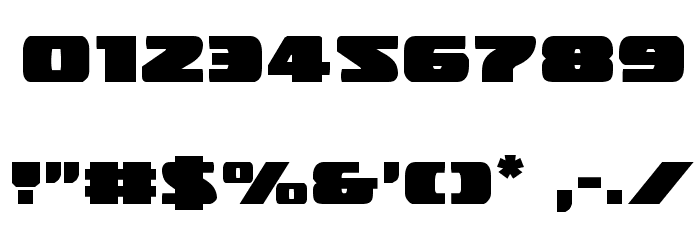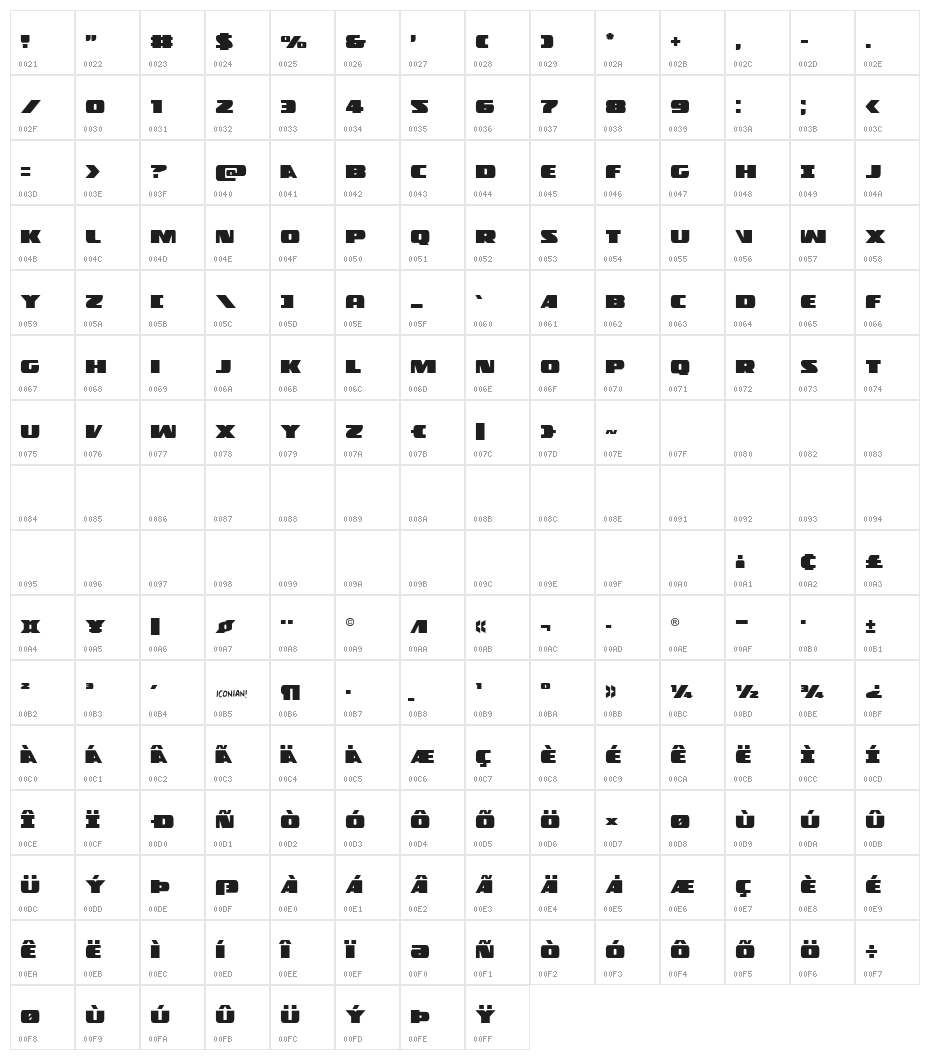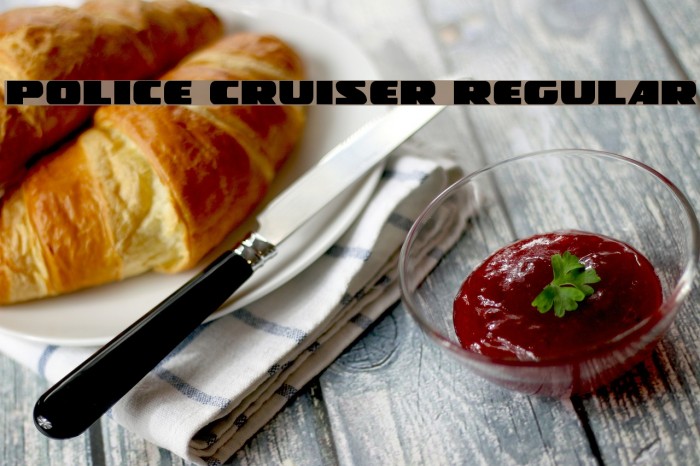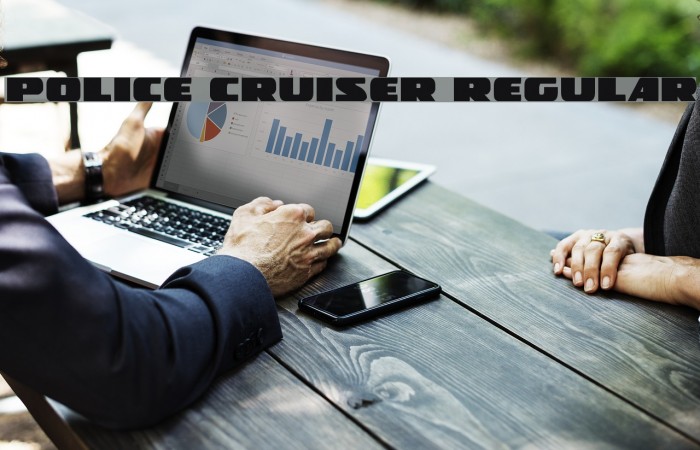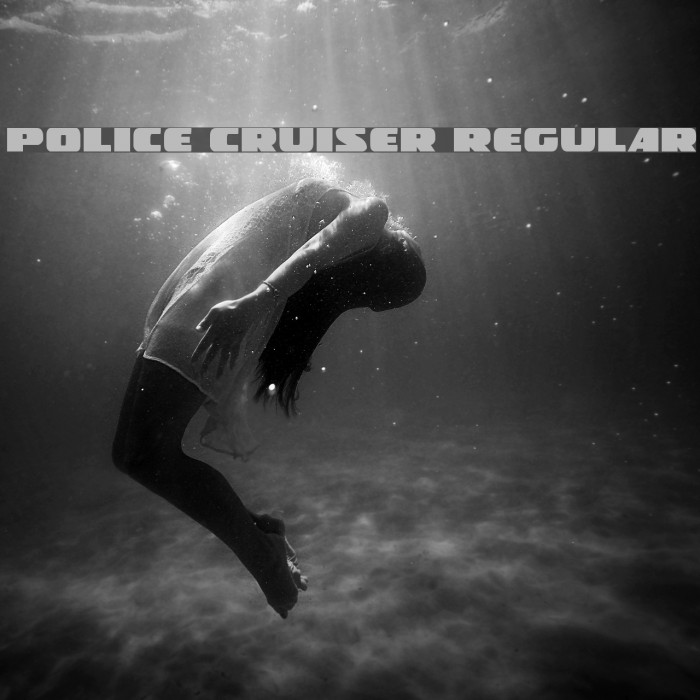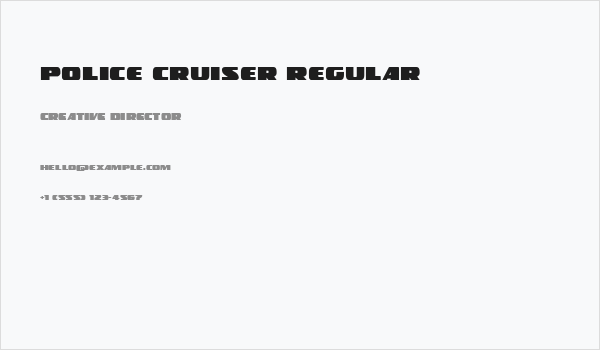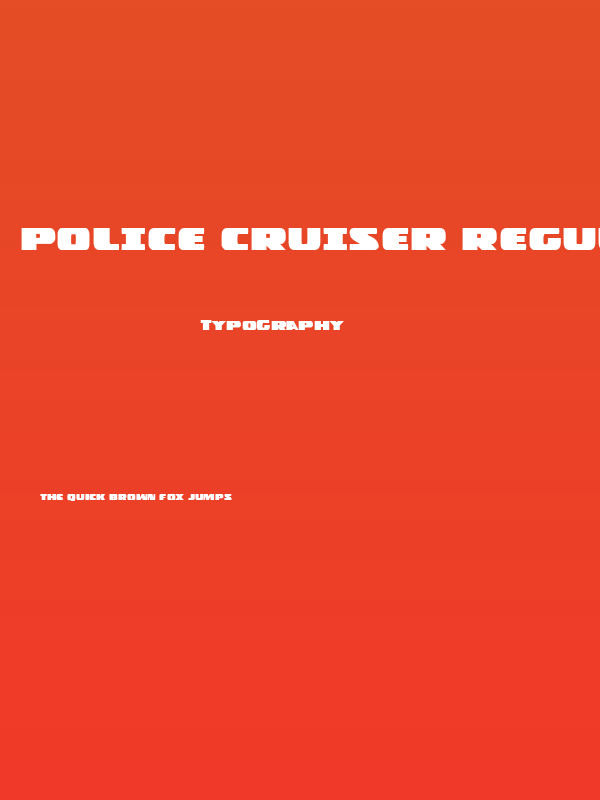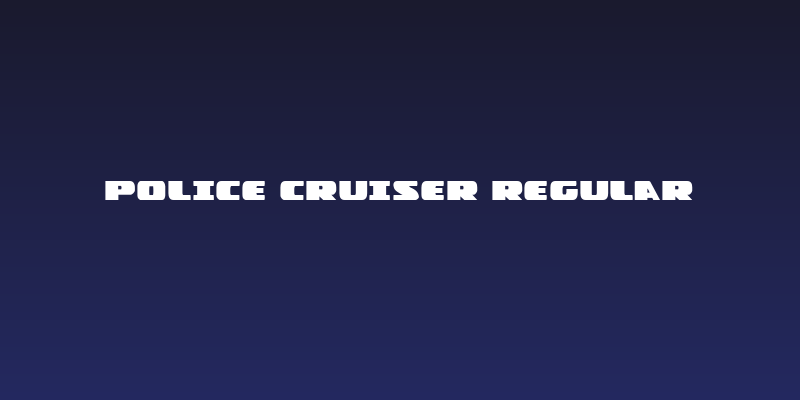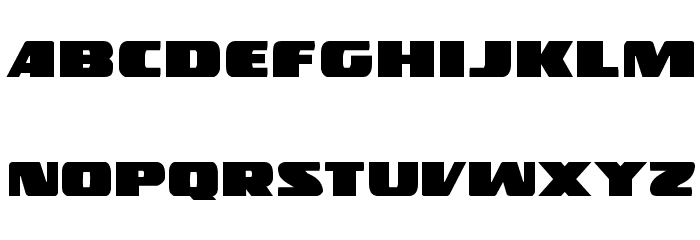
Police Cruiser Regular Font
Police Cruiser Regular Description
This font features a bold and impactful design with strong geometric shapes and a solid presence. The characters are wide and blocky, giving them a commanding appearance. The uppercase letters are consistent in height, while the numerals and special characters maintain the same bold style. The font's design is reminiscent of industrial or futuristic themes, making it suitable for projects that require a strong visual impact. The uniformity and weight of the characters ensure readability while maintaining a distinct style.